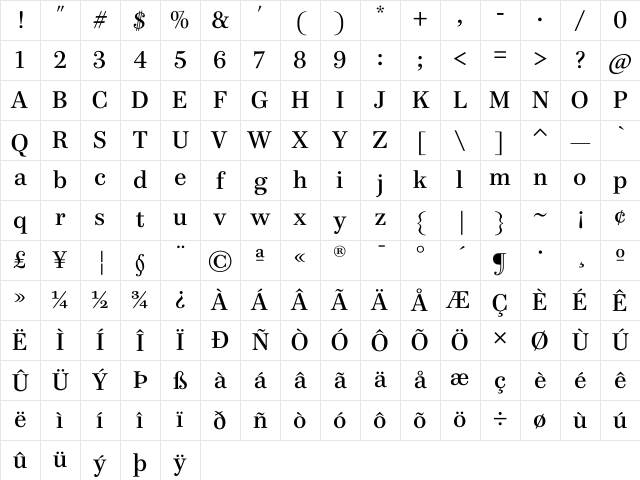
Complete Paperback 24 Roman glyph index. Displaying only characters natively supported by Paperback 24 Roman font.
Paperback 24 is a composed and adaptable typeface that performs quietly and consistently across a wide range of design contexts.